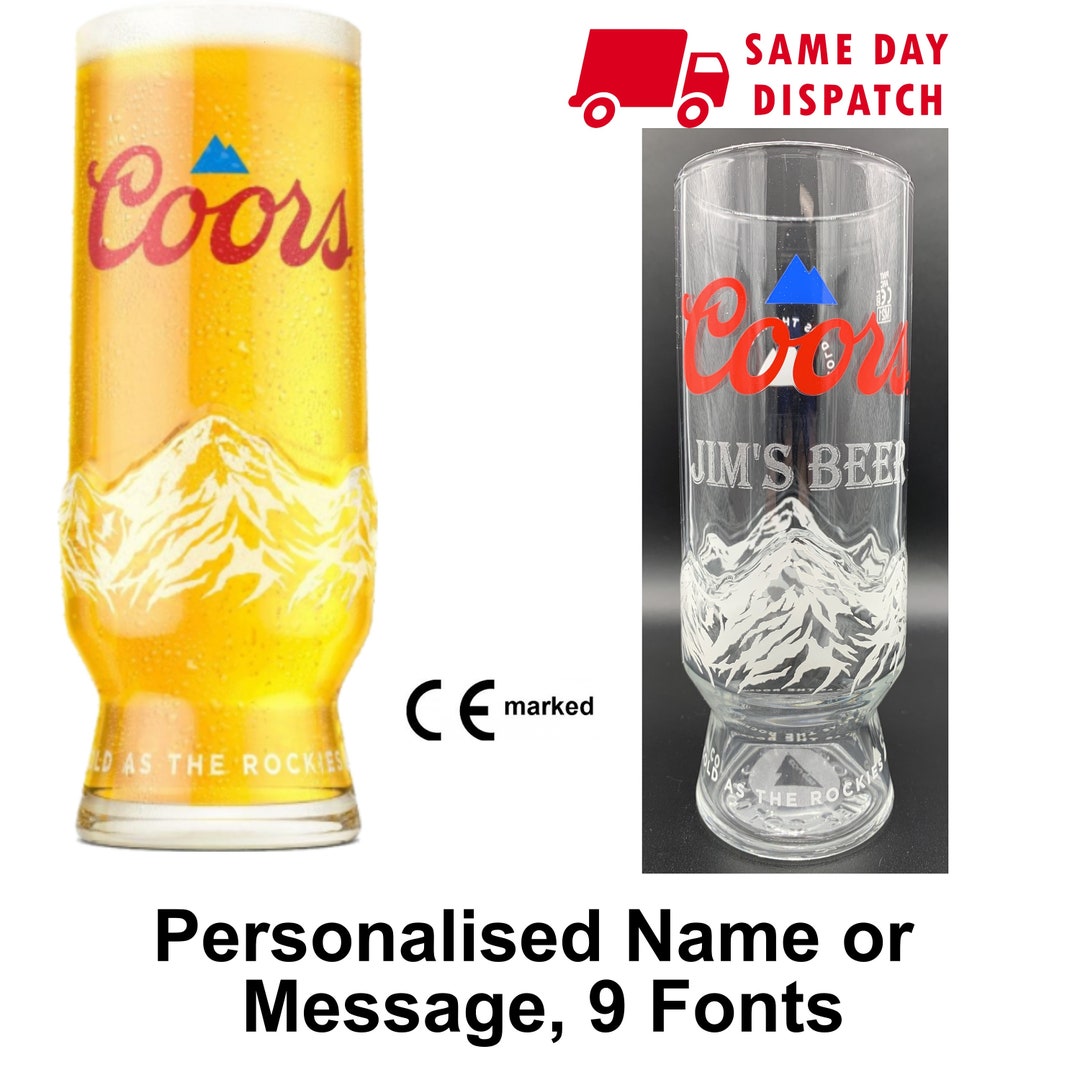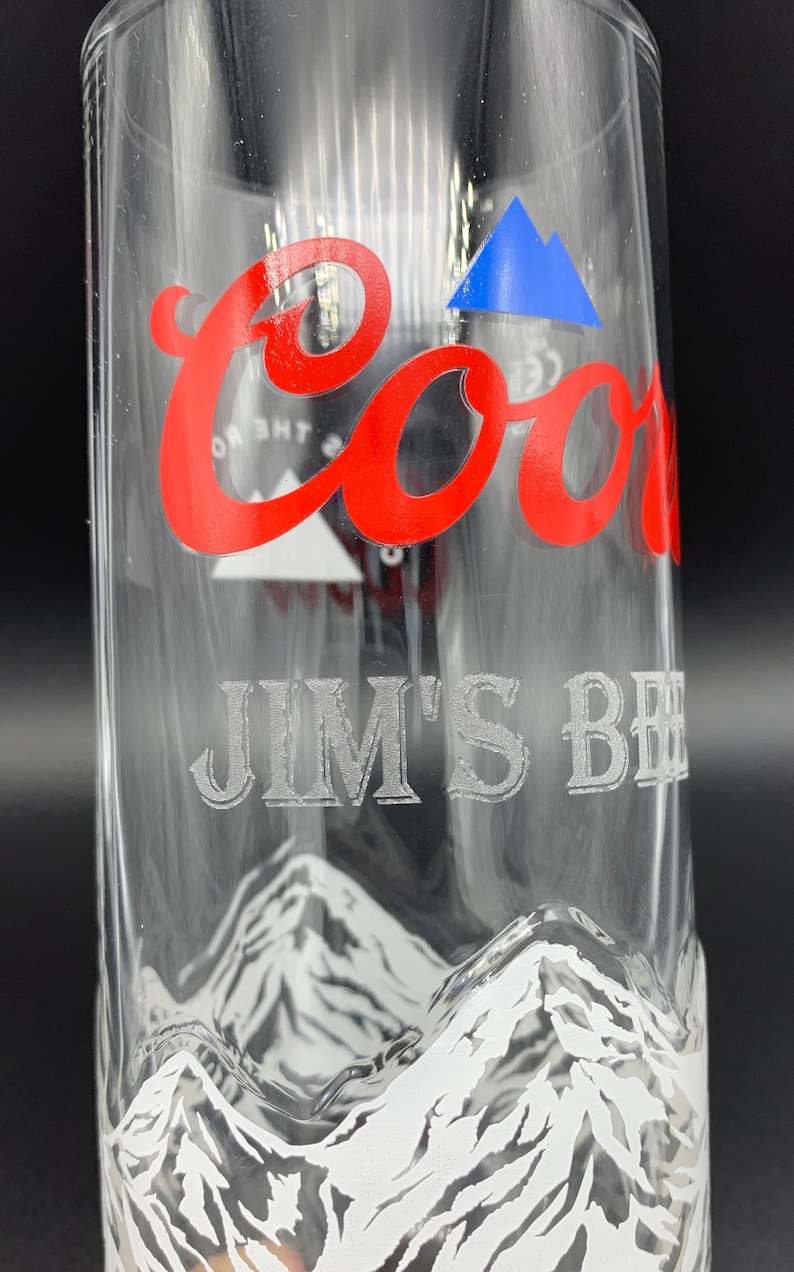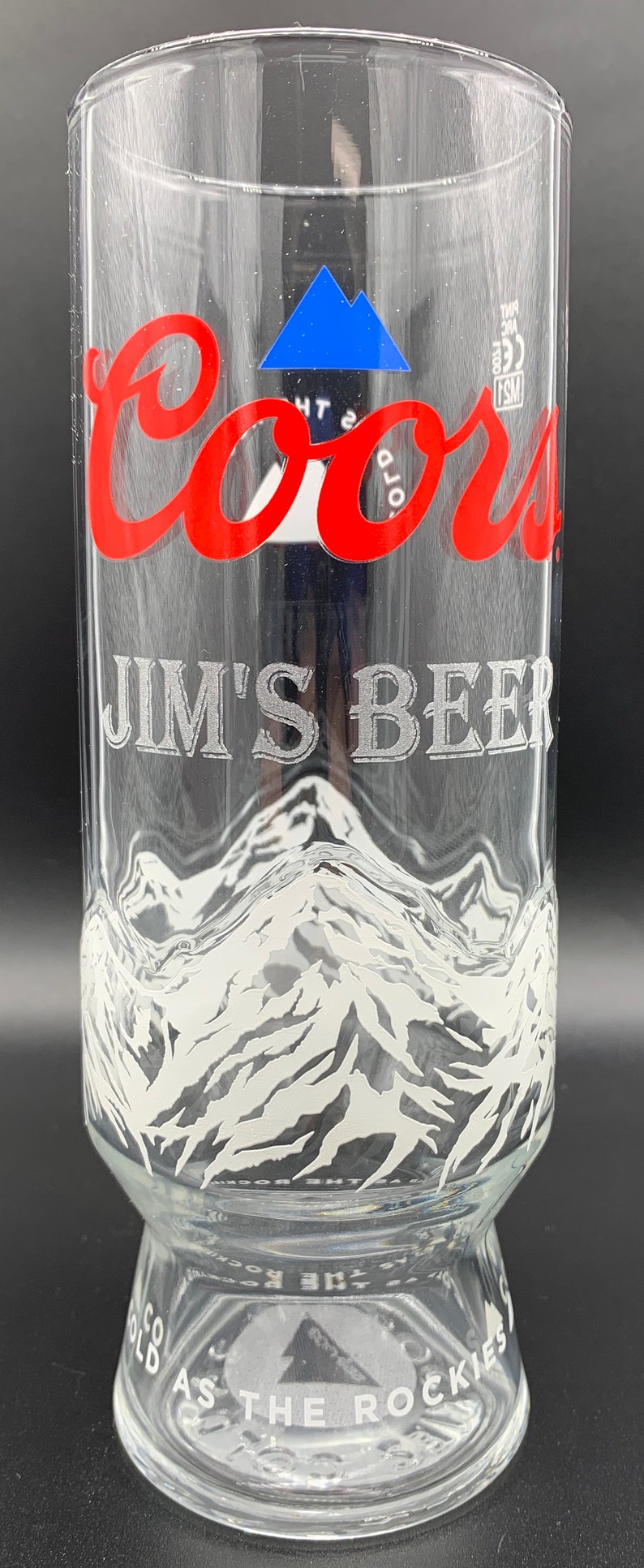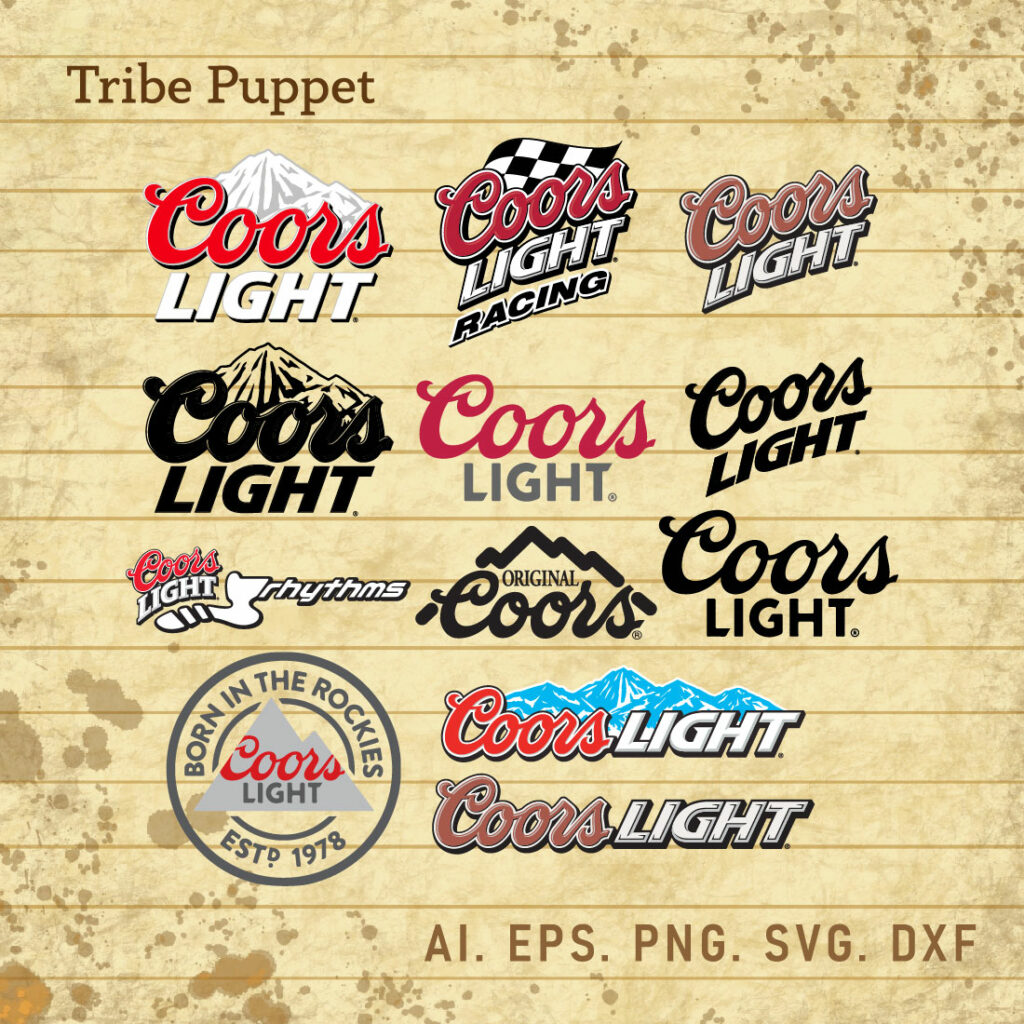
Coors Light Font Name . This generator lets you easily personalize your text by choosing. Coors light, also known as the “silver bullet,” is a top choice for light beer lovers in the u.s. Coors script, crafted by lyonstype, is a bold and dynamic font that captures the essence of its inspiration—the iconic logo of a renowned light beer brand. Blending vintage charm with a modern edge, it offers a. The coors light logo illustrates the brand’s strategy of simplicity and impact; And worldwide, debuting in 1978 by coors brewing company. A clear, recognizable emblem becomes ingrained in the consumer’s psyche, enhancing the beer branding. The coors light font generator is an online tool that allows users to create custom designs using the iconic coors light font. The font handy in the logo is known as “coors. It’s celebrated for its refreshing,. Coors script font is a stylish cursive typeface inspired by the iconic coors beer logo. Try the best coors light font generator & convert your text into images with many styles to choose from. The coors logo font holds significant importance in the branding of the coors company. Download coors light font font free on fontbolt. With its brush style strokes, coors script.
This generator lets you easily personalize your text by choosing. Blending vintage charm with a modern edge, it offers a. Coors script font is a stylish cursive typeface inspired by the iconic coors beer logo. With its brush style strokes, coors script. And worldwide, debuting in 1978 by coors brewing company. The coors logo font holds significant importance in the branding of the coors company. A clear, recognizable emblem becomes ingrained in the consumer’s psyche, enhancing the beer branding. It’s celebrated for its refreshing,. The font handy in the logo is known as “coors. Try the best coors light font generator & convert your text into images with many styles to choose from.
Coors Light Font Name It’s celebrated for its refreshing,. Coors script font is a stylish cursive typeface inspired by the iconic coors beer logo. And worldwide, debuting in 1978 by coors brewing company. The coors light logo illustrates the brand’s strategy of simplicity and impact; This generator lets you easily personalize your text by choosing. With its brush style strokes, coors script. Coors script, crafted by lyonstype, is a bold and dynamic font that captures the essence of its inspiration—the iconic logo of a renowned light beer brand. The coors logo font holds significant importance in the branding of the coors company. Blending vintage charm with a modern edge, it offers a. Download coors light font font free on fontbolt. The font handy in the logo is known as “coors. The coors light font generator is an online tool that allows users to create custom designs using the iconic coors light font. Try the best coors light font generator & convert your text into images with many styles to choose from. A clear, recognizable emblem becomes ingrained in the consumer’s psyche, enhancing the beer branding. It’s celebrated for its refreshing,. Coors light, also known as the “silver bullet,” is a top choice for light beer lovers in the u.s.